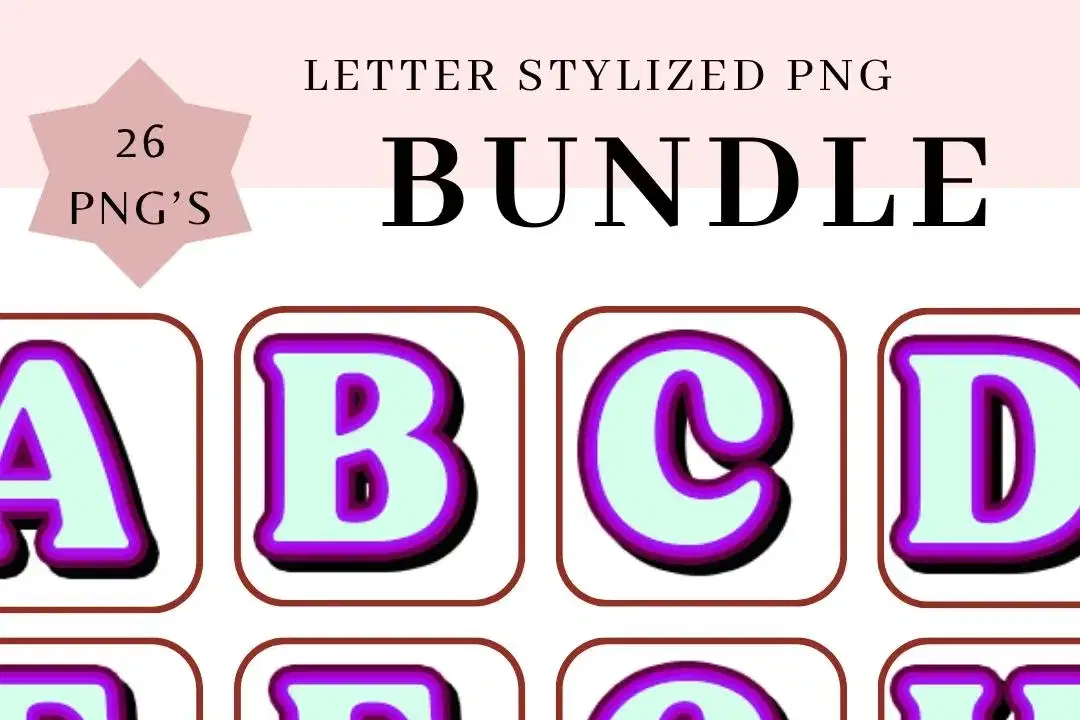
Purple Outline Font Clip Art: 26 Letter PNG Bundle - Digital Download
Add a vibrant and stylish touch to your creative projects with this Purple Outline Font Clip Art Bundle, featuring all 26 letters of the alphabet in a sleek purple outline design. Each letter is crafted with a modern, stylized look that combines elegance and playfulness, making them perfect for digital scrapbooking, invitations, posters, branding, and social media graphics. Delivered as high-quality PNG files with transparent backgrounds, these alphabet letters are easy to layer and customize for a variety of design needs.
Includes 26 stylized purple outline letters (A-Z)
Modern and elegant outline font style suitable for both digital and print projects
Bring a fresh pop of color and sophistication to your typography with this unique purple outline alphabet set.